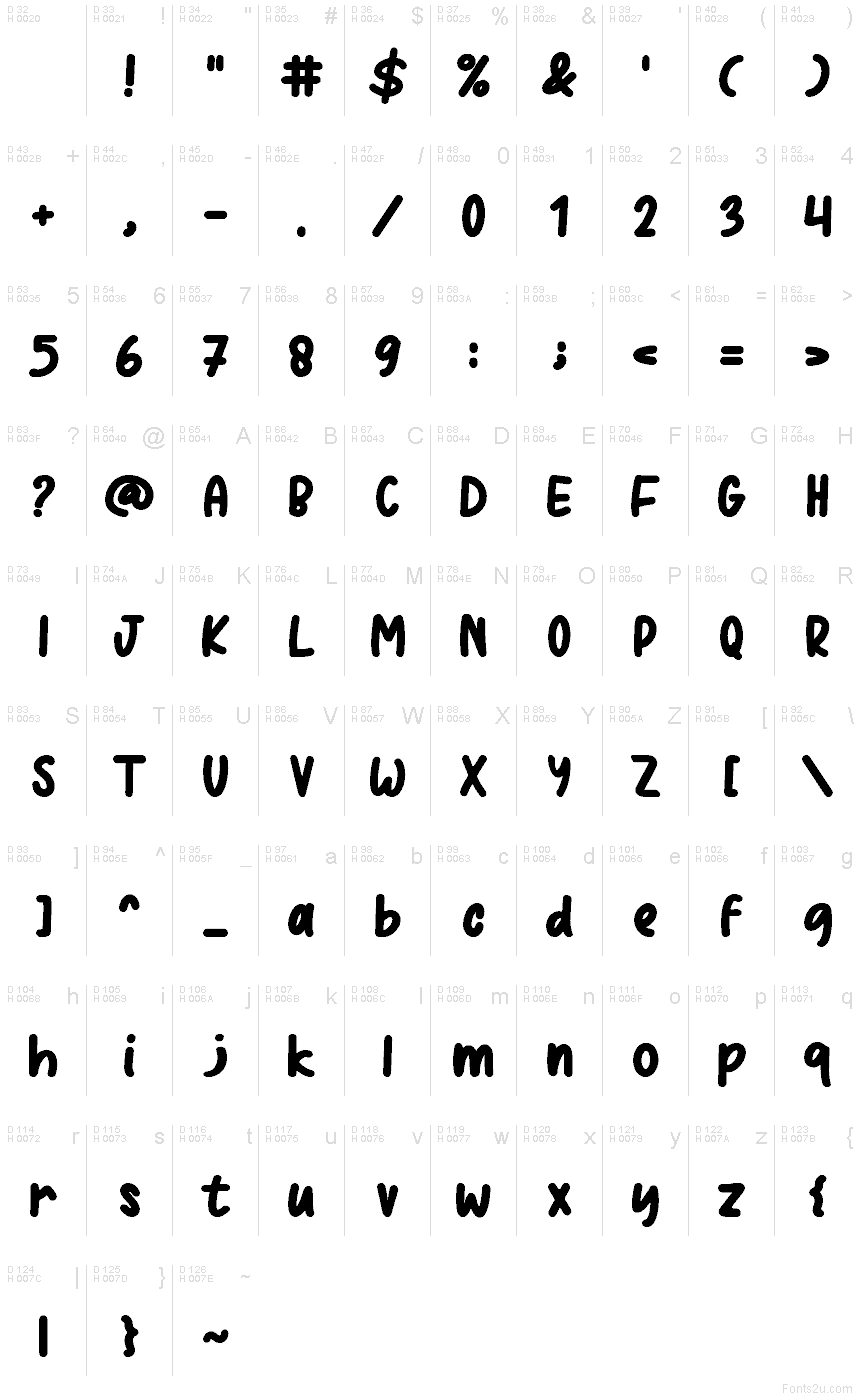
Jayen King
Jayen King font is a free handwritten font from Wildan Type with an informal appeal. The modern script typeface has a casual, friendly vibe, and it easily turns any text into a work of art. Every letter in this beautiful font inherits a distinctive smooth flow which makes it stand out from related fonts.
Jayen King is suitable for signature design, titles for advertising, social media posts, product or business branding, and logos. It’s elegant in headlines for fashion magazines and simple book covers. Also try it in quotes on eco-friendly packaging items like boxes or shopping bags.